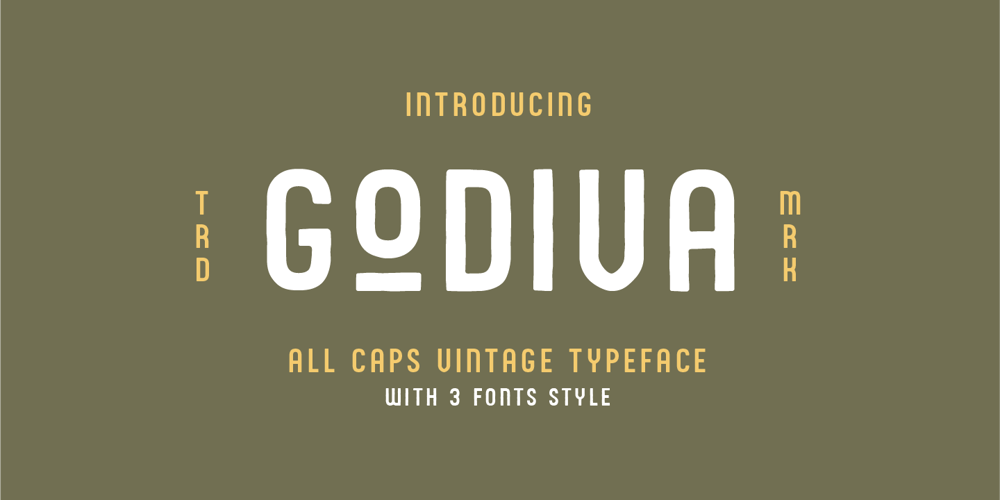
Godiva
Godiva font
Godiva Font Family was designed by Teguh Subiyantoro and published by Suby Studio. Godiva contains 3 styles and family package options. Godiva is vintage font family inspired by vintage lettering. It works perfectly for achieving that vintage aesthetic with your designs.